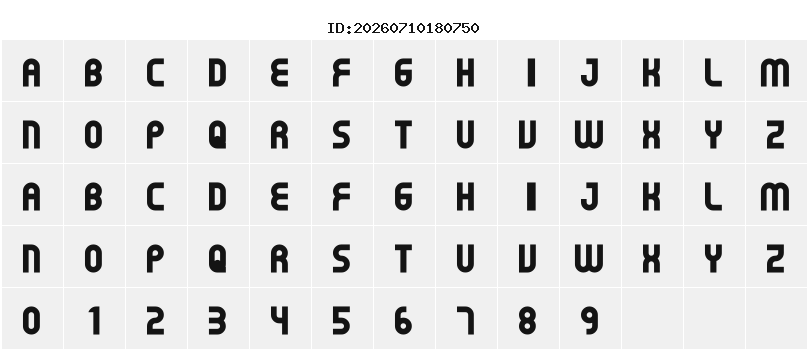
• Font Name: Gear Proportion
About Gear Proportion.ttf
Gear Proportion.ttf is a modern, elegant sans-serif font designed for ultimate readability and visual harmony. Perfect for branding, headlines, web design, and print materials.